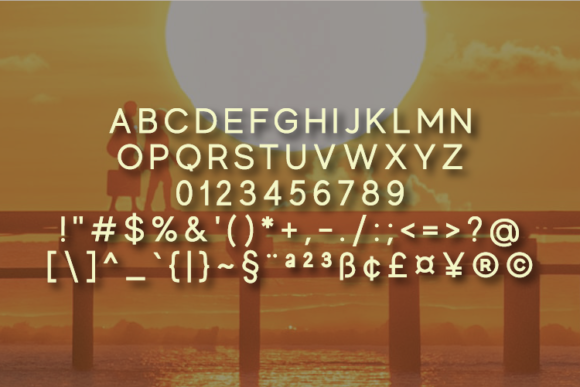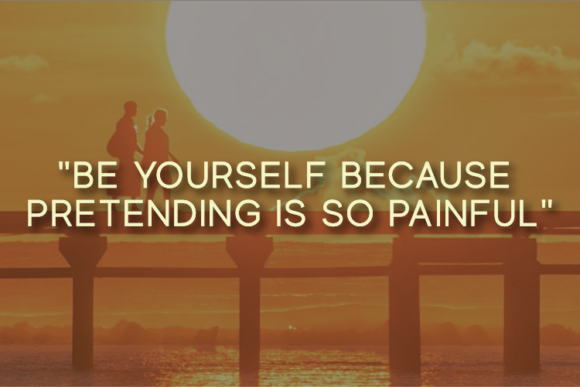
Introduction to Meillane Font
Meillane is a minimal and neat sans serif font.
Key Features of Meillane Font
Why Choose Meillane Font?
Meillane Font offers exceptional quality and versatility, making it a valuable addition to your design toolkit. Whether you’re creating for personal projects or commercial use, Meillane Font delivers professional results.